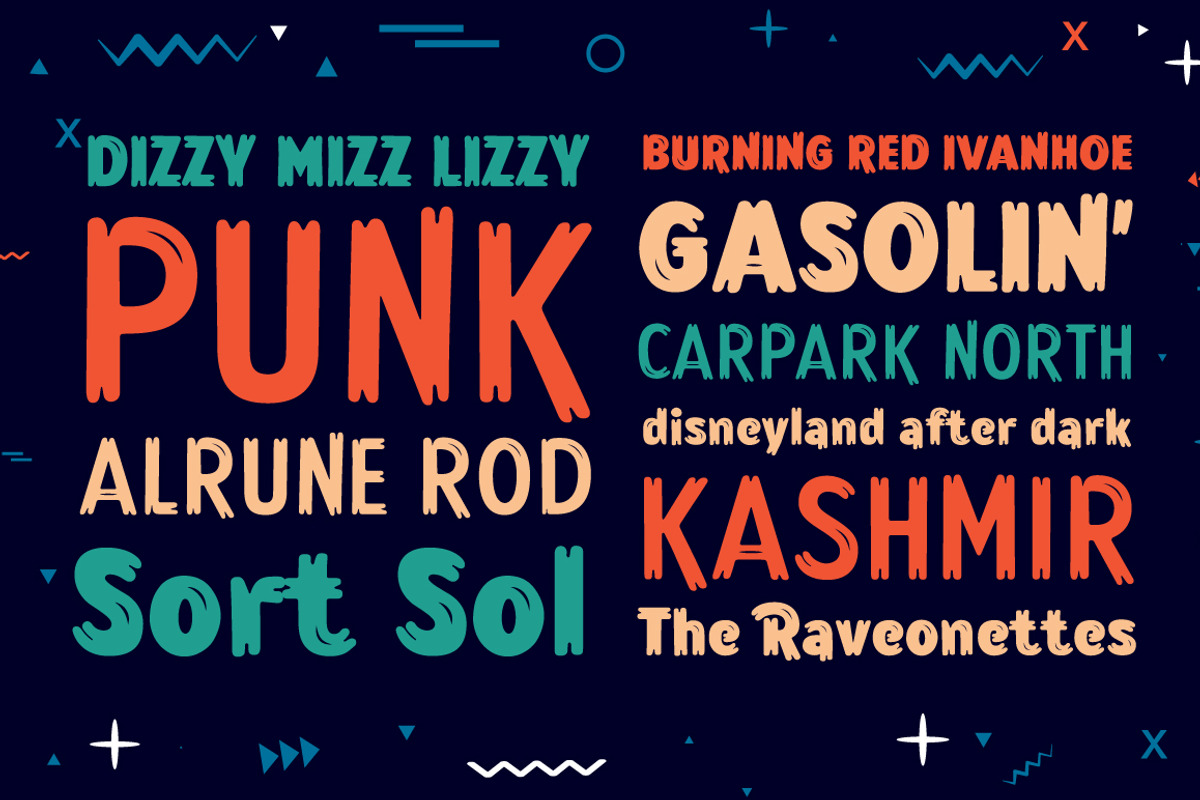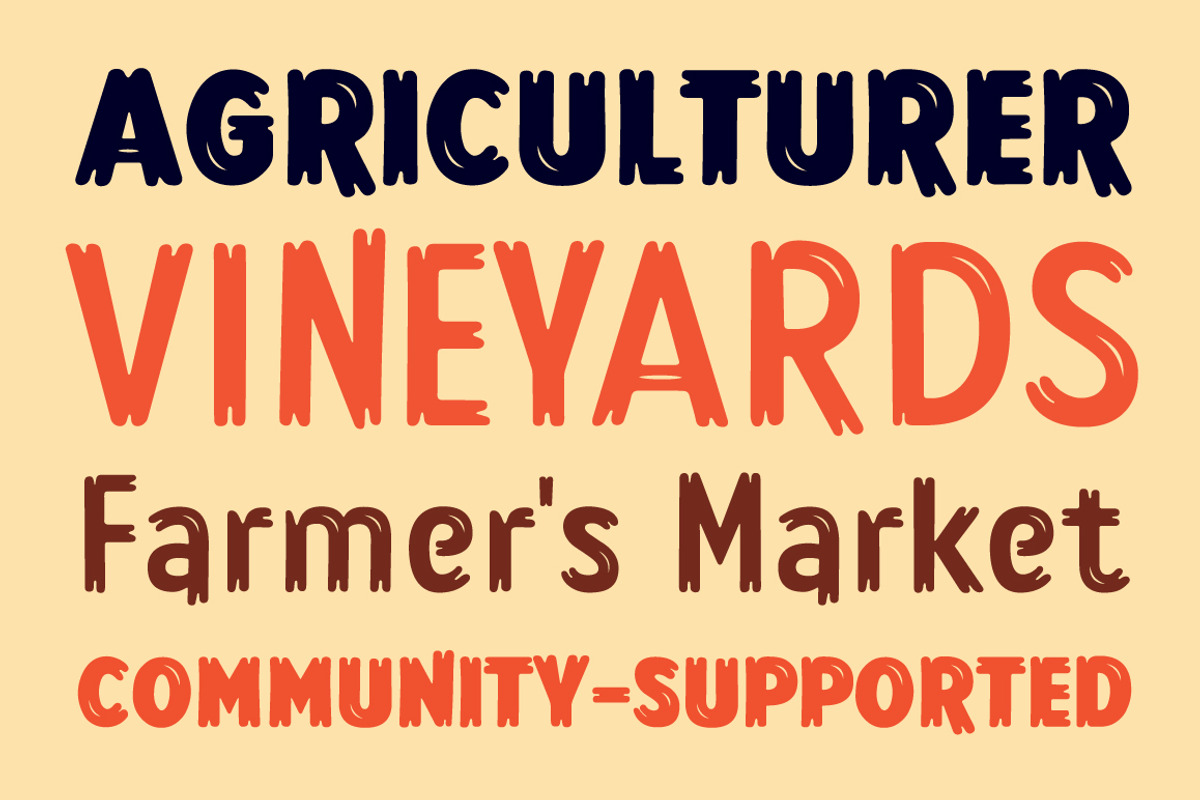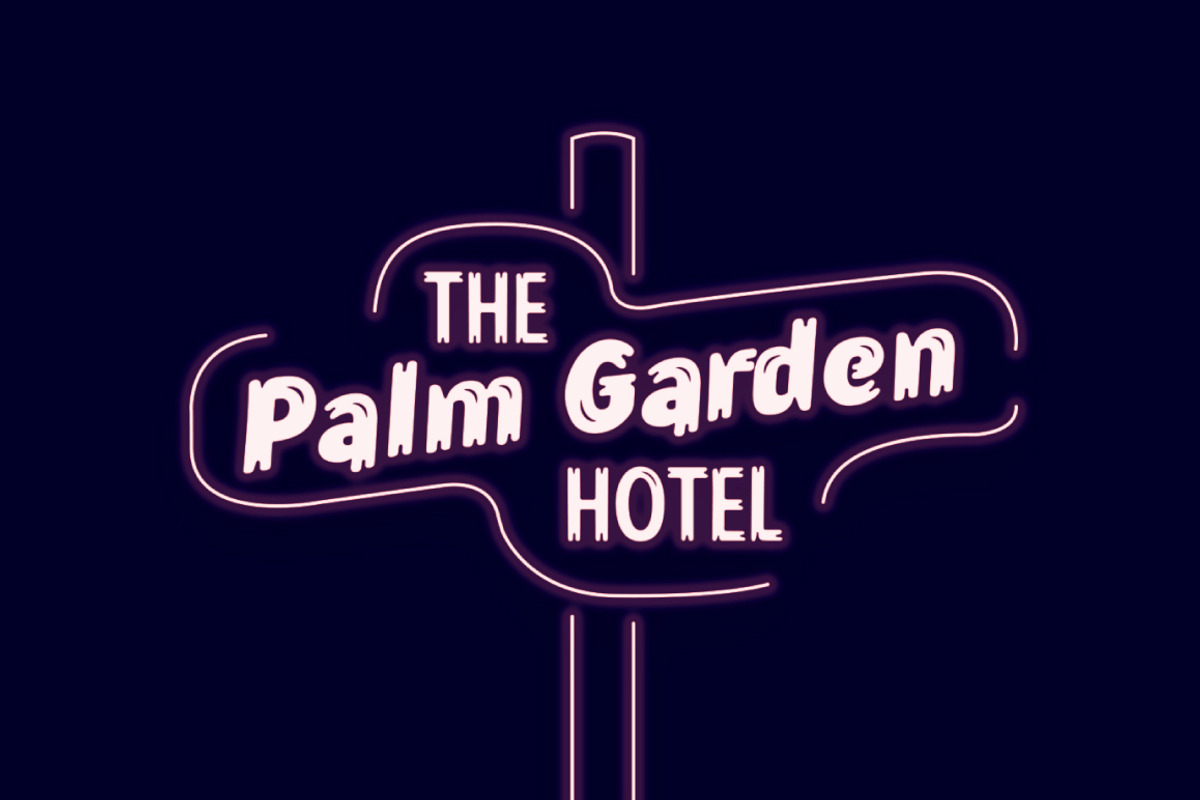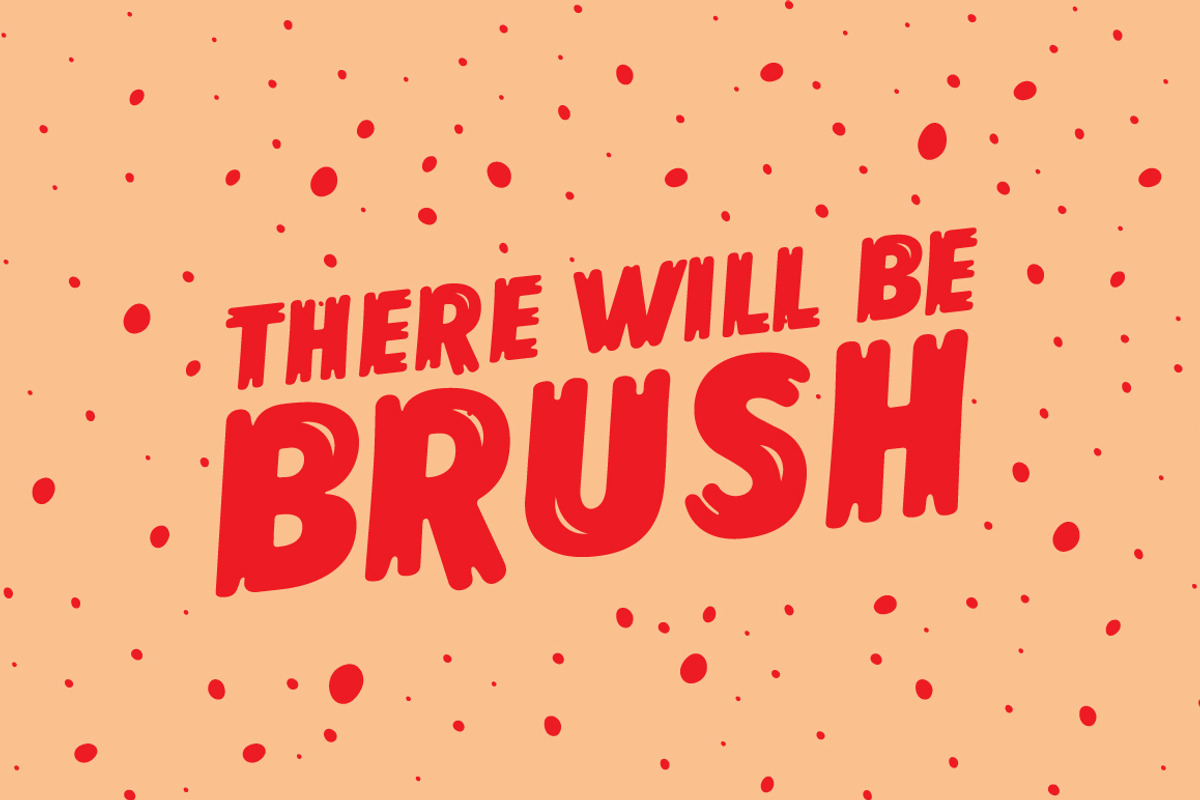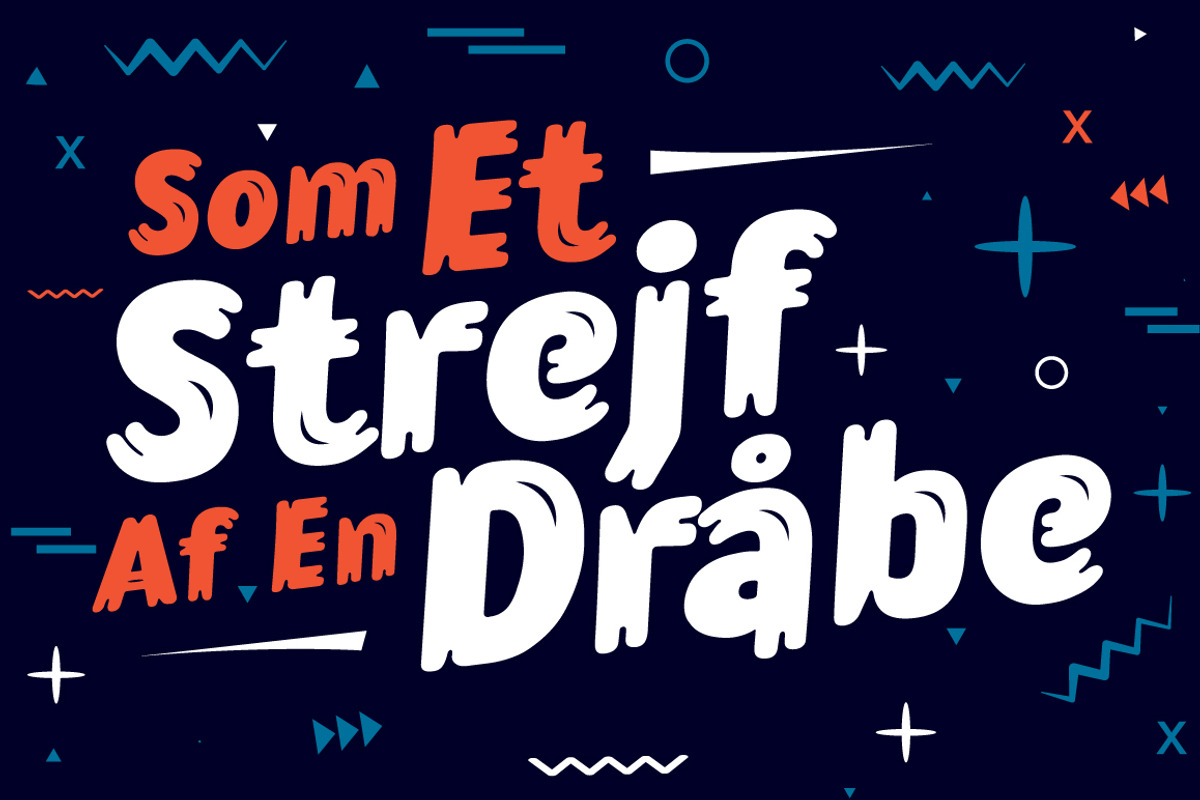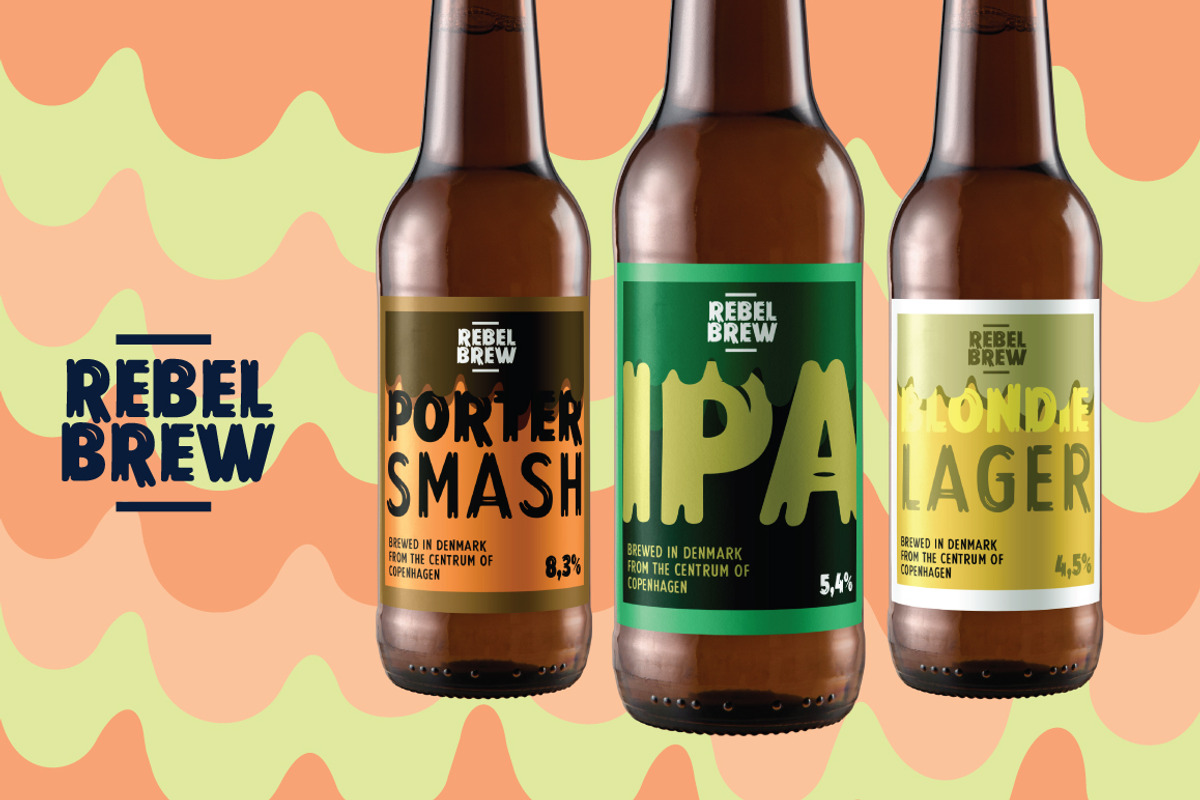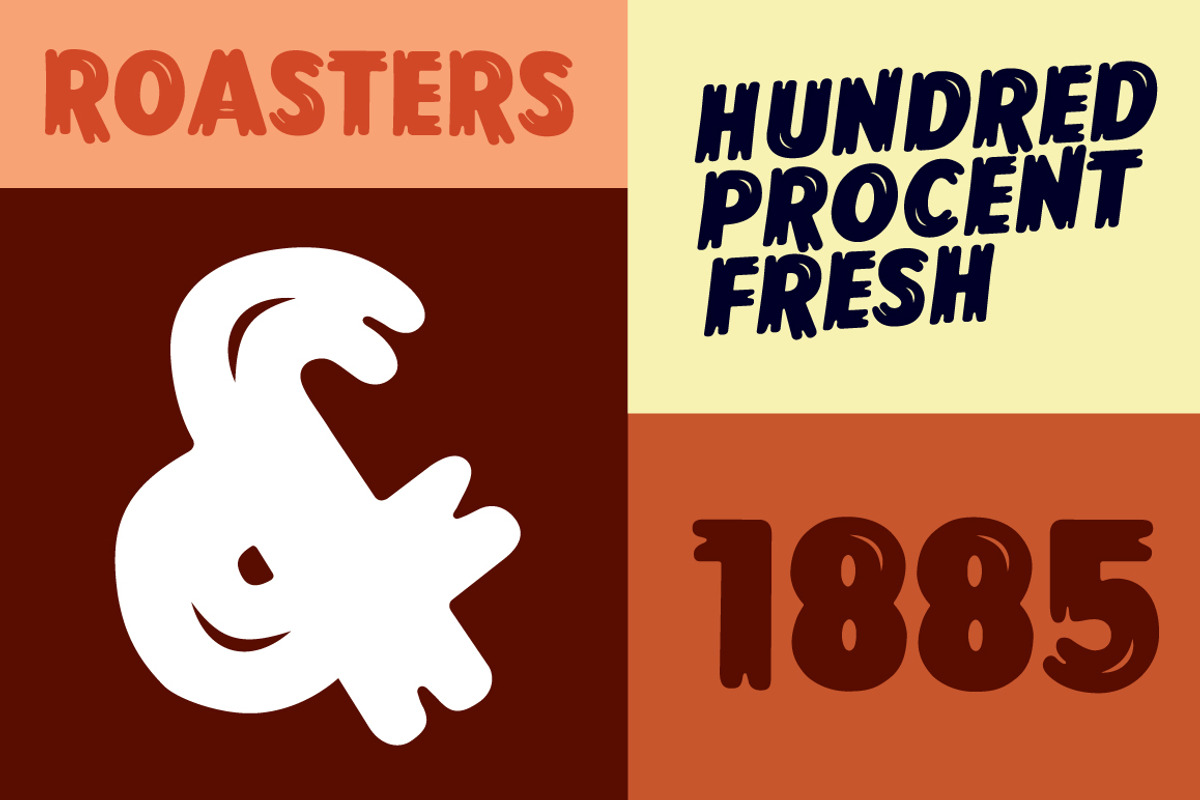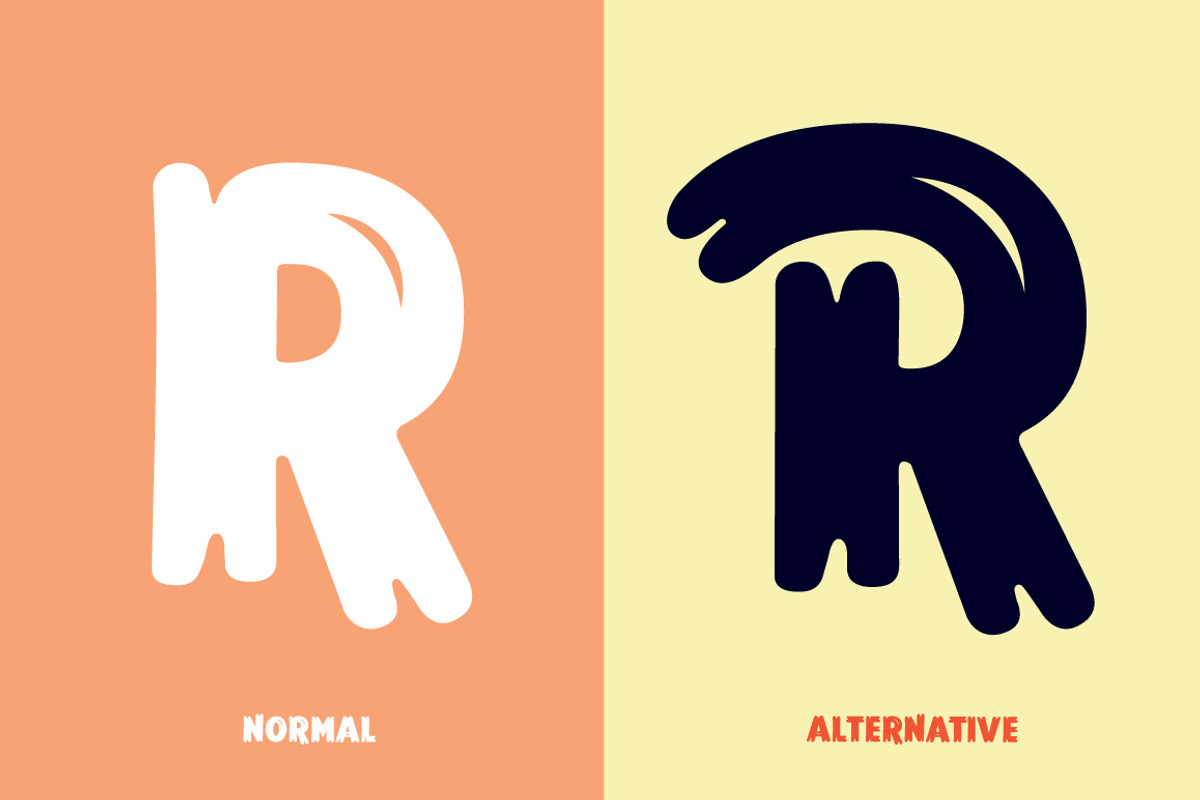
Lonkie Brush
The name Lonkie invokes 3 words: glamour, ambition and cordiality. The idea of making a handwritten font. With its playful and soft forms, it also expresses a form of a professional look that can be used in many different contexts. This mixture of the pure and raw expression is based on many research inspirations design projects focusing on packaging design, organic and even old danish movie posters from the 30s. This font is great for logo, poster, package design, cinema posters, branding, party invitation, and many many other cool design projeects. Enjoy!